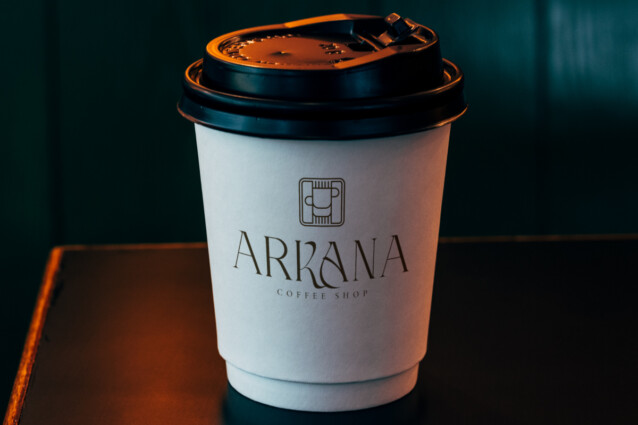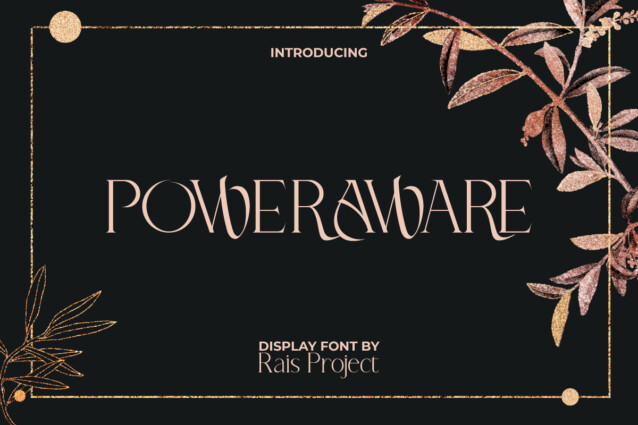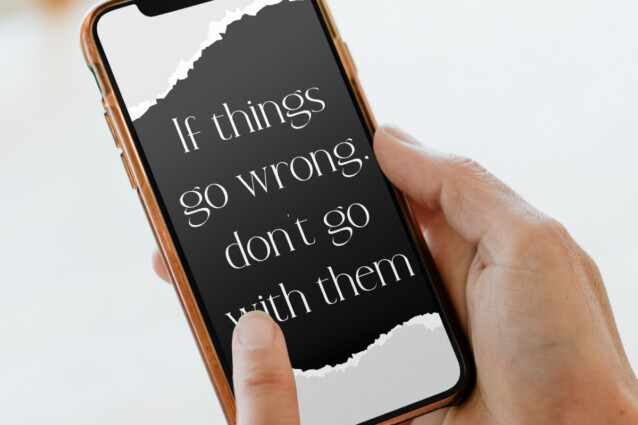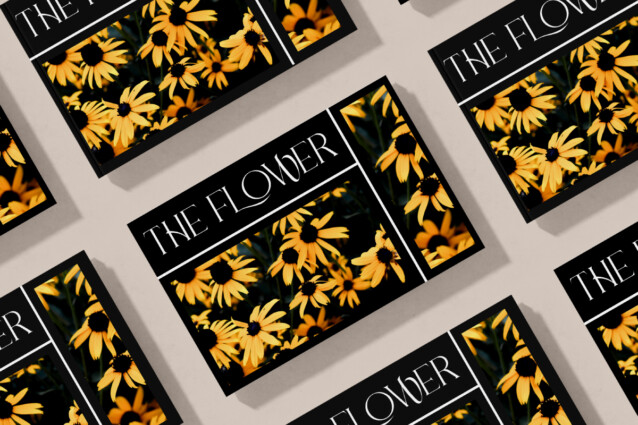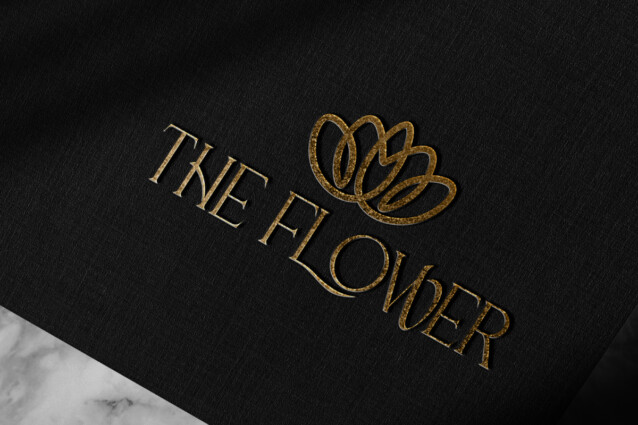
Power Aware Font
Power Aware Font is a beautiful luxurious serif display font. The characters in this font have a unique minimalist style and can provide an fancy appearance. It will be good for any designs, such as brand image, custom design, flyer, invitation, label, magazine cover, marketing material, menu, poster, product packaging, quotes, signage, stationery, website page, and more!